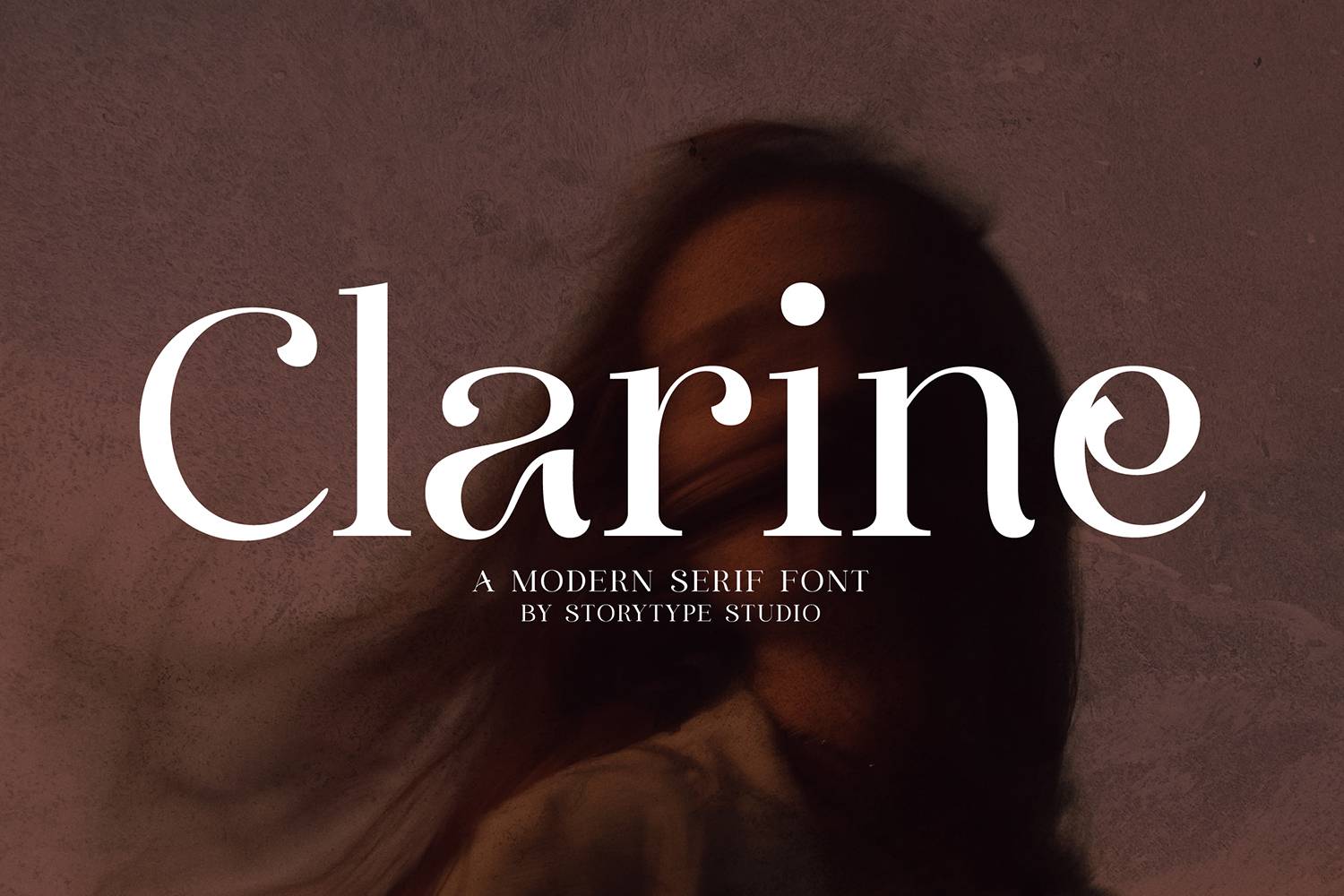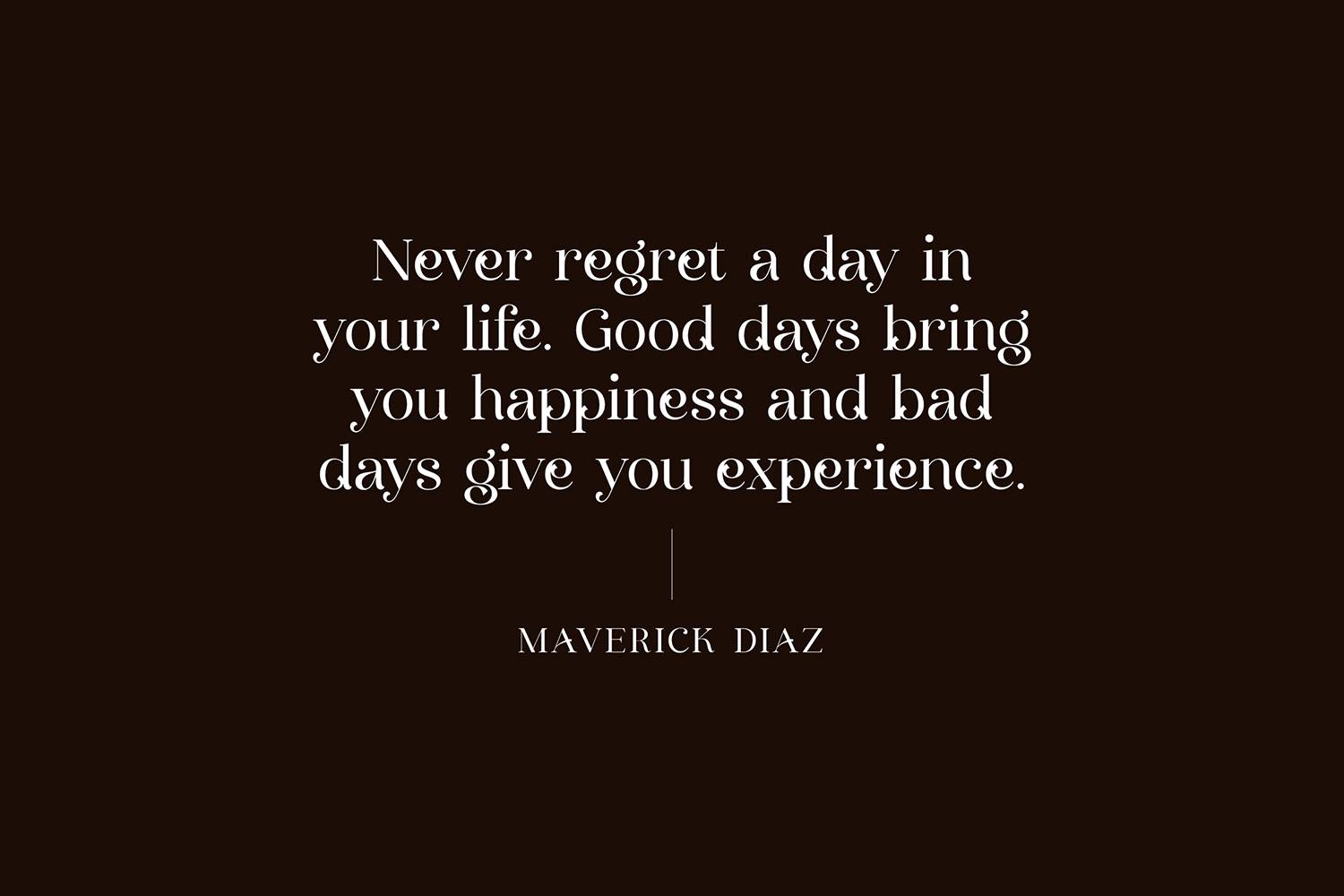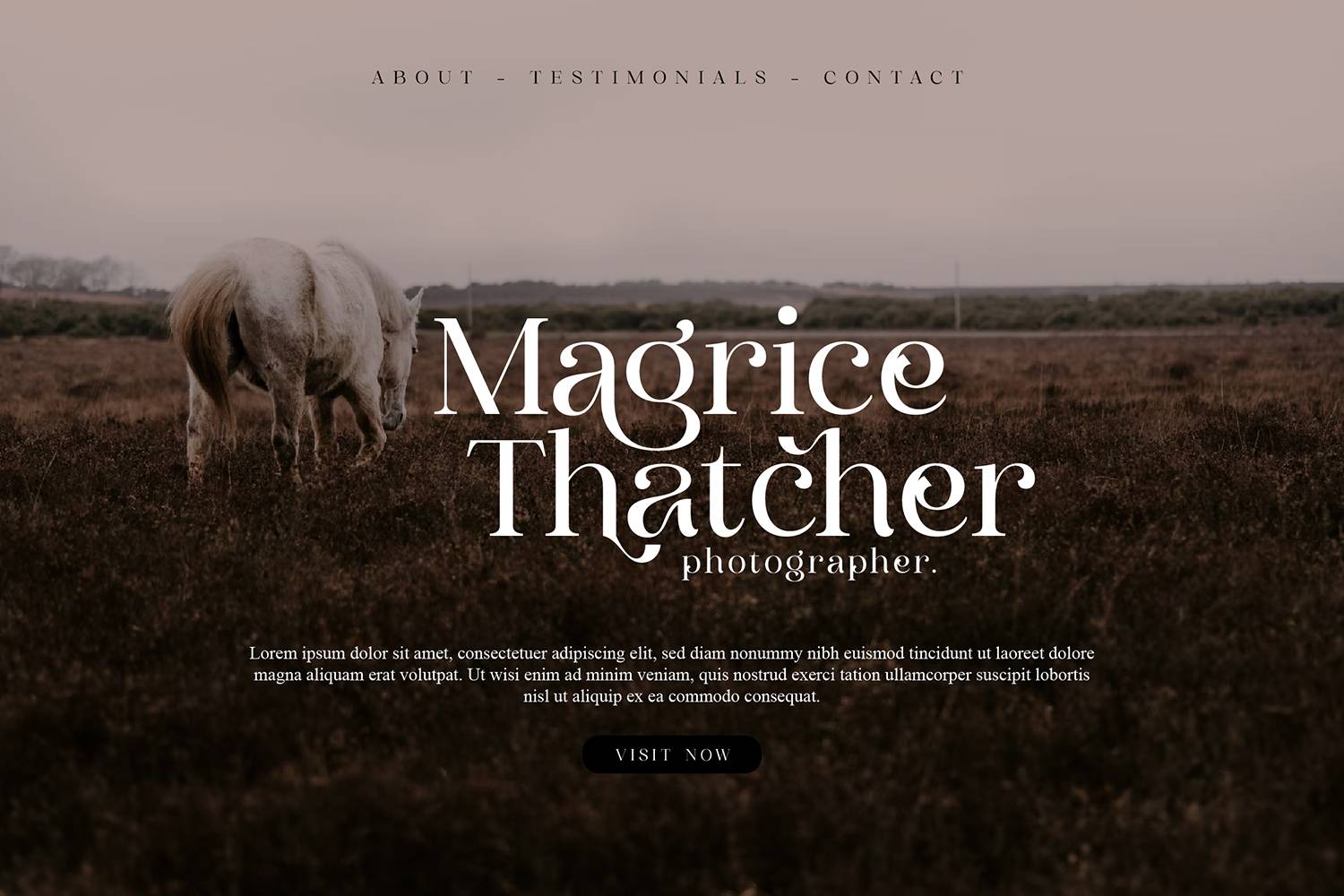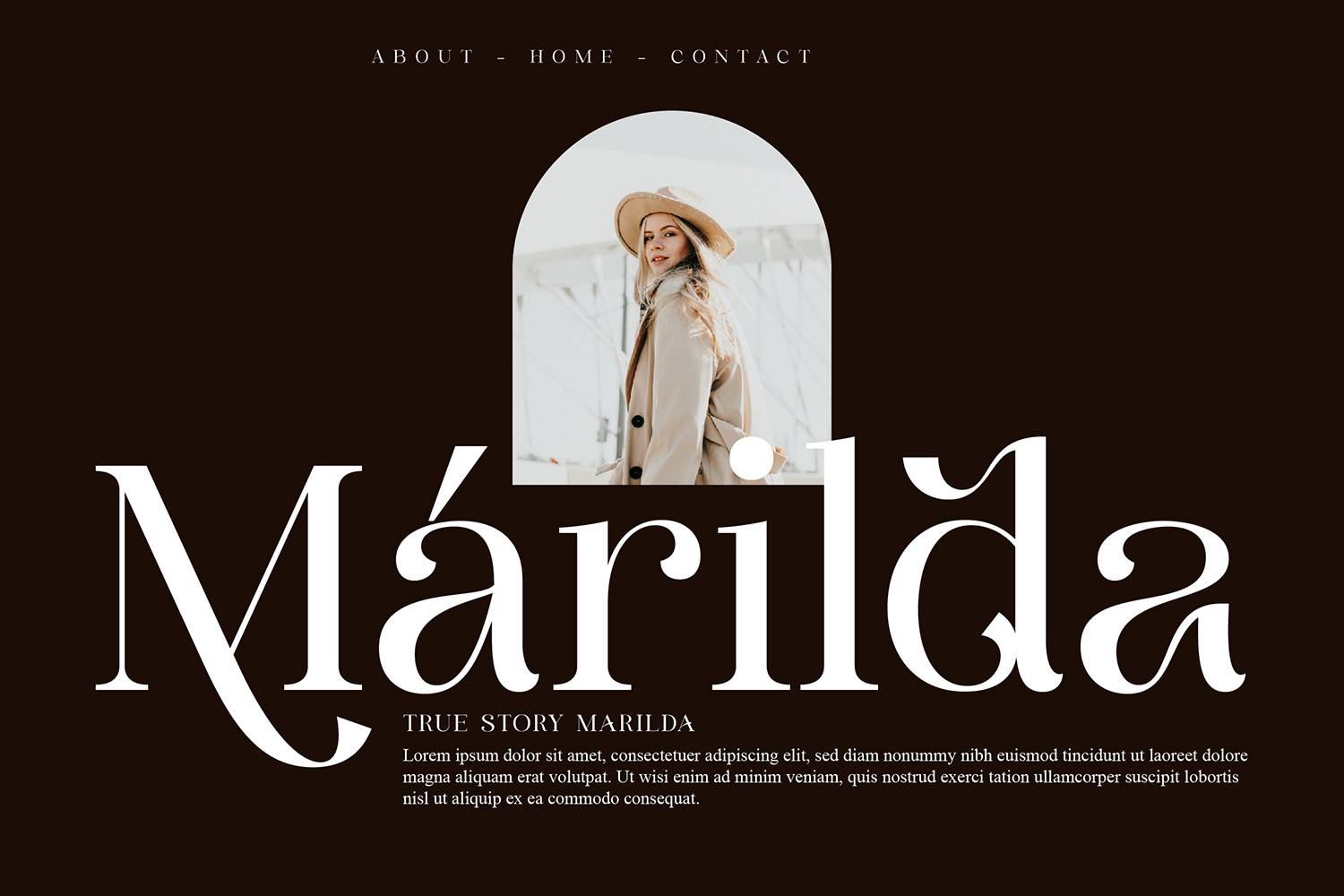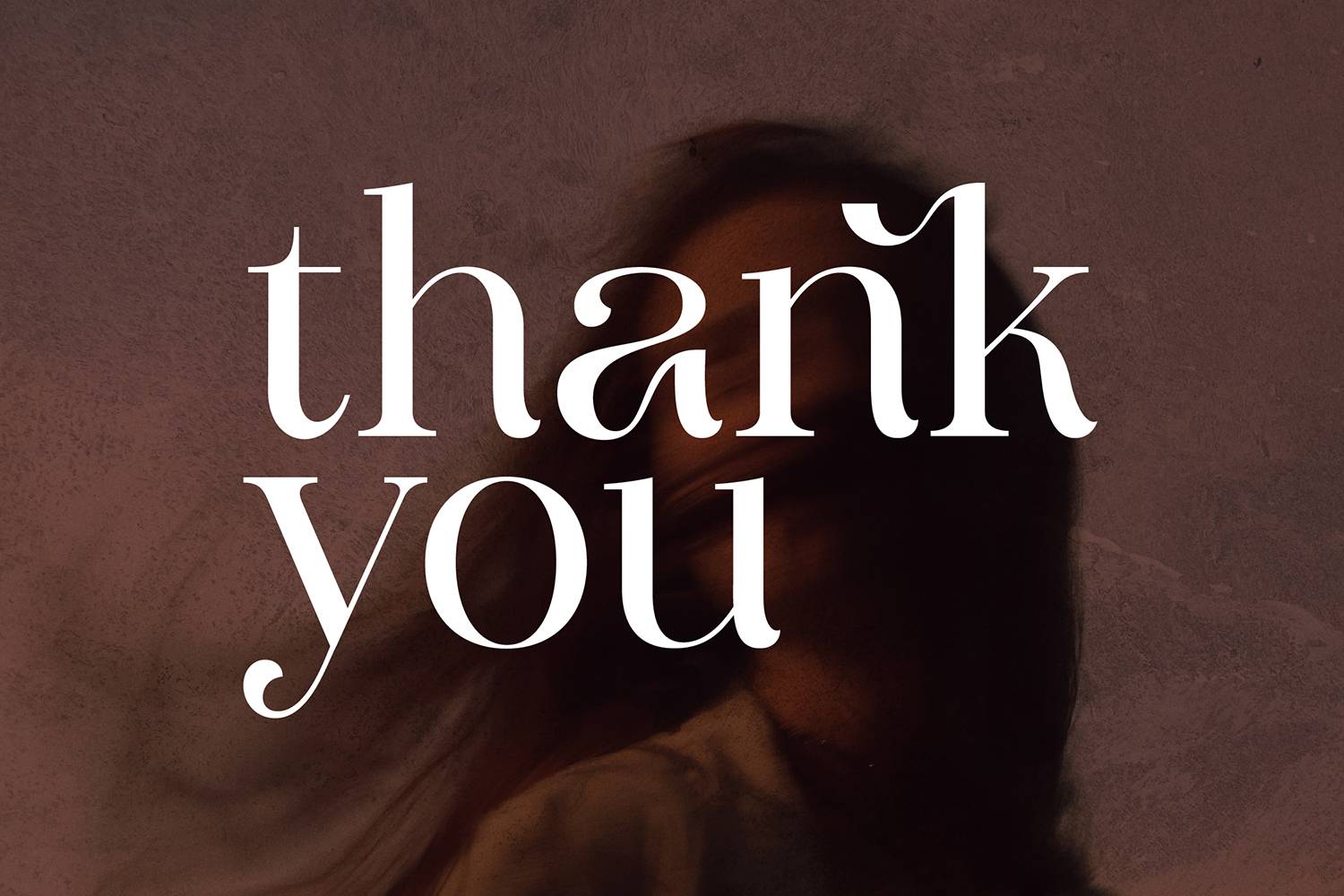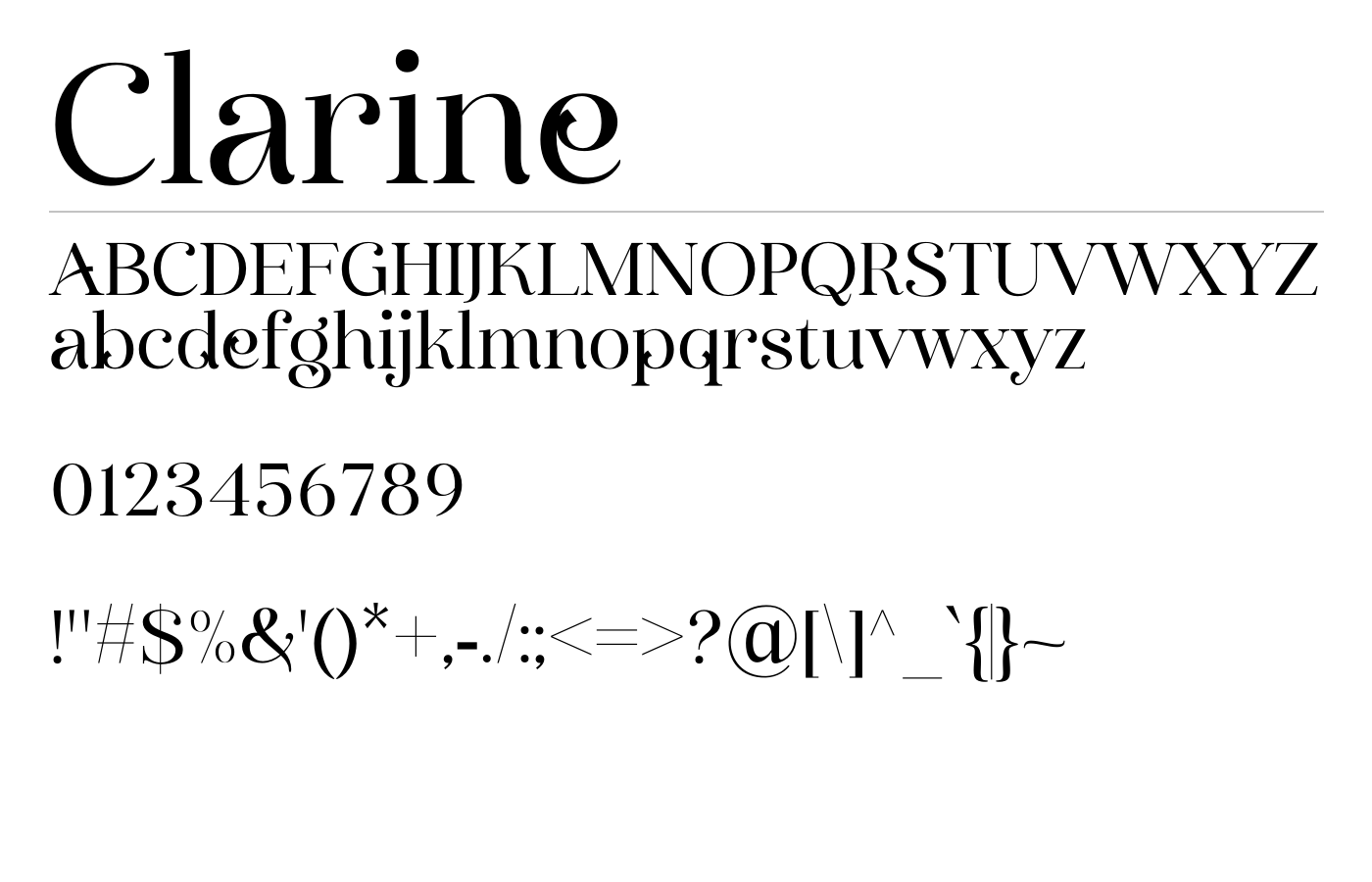
Clarine Typeface is an elegant serif font designed with high contrast between thick and thin strokes, giving it a refined and sophisticated look. Its slender, bracketed serifs and unique, slightly whimsical letterforms make it ideal for luxury branding, editorial headlines, and fashion-focused design projects where a touch of modern classicism is desired. This font’s graceful style and clear readability lend a polished and stylish personality to any creative work.